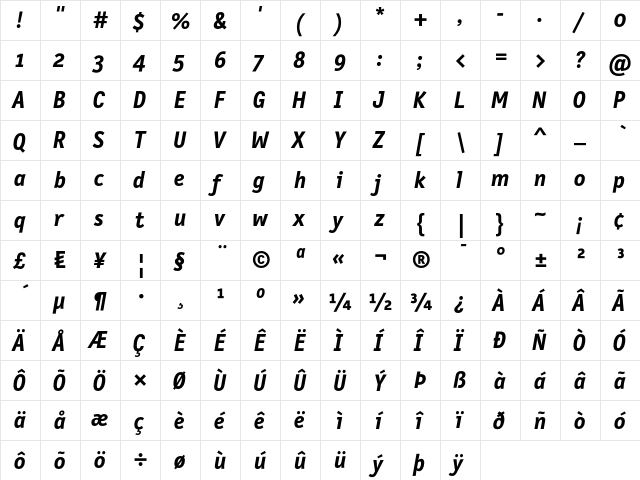
LetterGothicText BoldItalic Font Preview
Design Context for LetterGothicText Typeface
LetterGothicText takes a clean, functional approach — its unadorned letterforms prioritise legibility and work reliably across screen and print environments. The dynamic lean of this cut emphasises speed and emphasis in any layout. Its bold stroke weight gives it real presence on the page.
A strong choice for UI design, app interfaces, bold signage, and corporate brand systems.
Font Pairing: Use LetterGothicText for headlines alongside a lighter-weight sans or serif for body copy to establish clear visual hierarchy.
Pro Tip: Pair LetterGothicText with a display or serif font for headlines — its neutral character makes it an excellent supporting player in complex typographic systems.